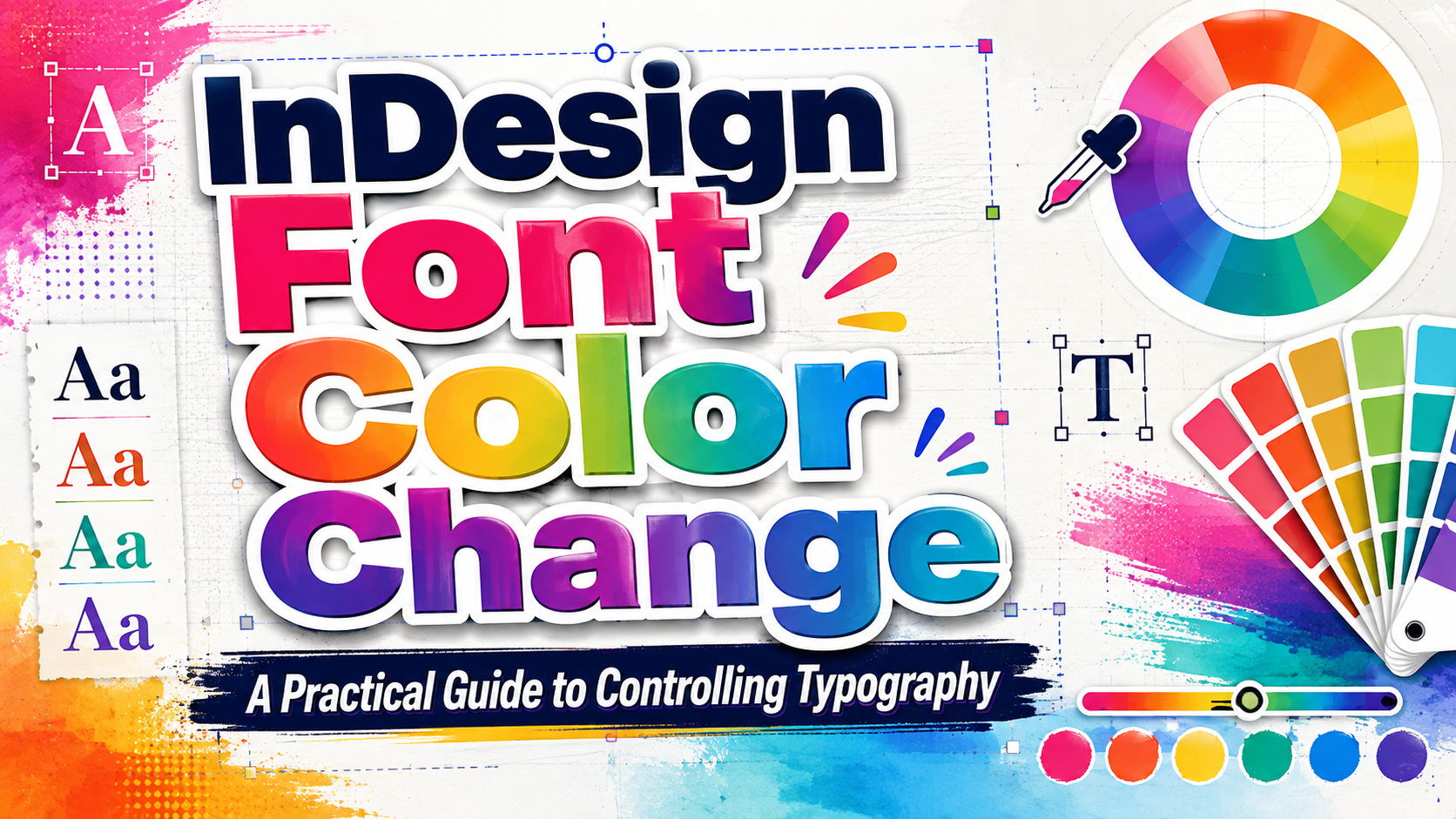
The easiest way to handle an InDesign font color change is to select the text with the Type Tool and apply a color through the Swatches panel. But for professional work, there is an important second step: turn frequently used colors into named swatches and connect them to text styles whenever possible.
This creates a much stronger workflow than manually entering color values every time.
For example, a magazine might use:
- Brand Black for body copy
- Editorial Blue for section headings
- Accent Orange for quotations
- Muted Gray for captions
- Paper White for reversed text
If the client later changes Editorial Blue, you can edit the swatch rather than searching through dozens of pages for individually colored headings.
Adobe recommends managing document colors as swatches because they can be examined, edited, and reused consistently.
How to Change Font Color in Adobe InDesign
Method 1: Change the Color of Selected Text
For a basic text color change:
- Select the Type Tool.
- Highlight the characters, word, sentence, or paragraph you want to recolor.
- Open Window > Color > Swatches.
- Make sure text formatting is active rather than the text-frame container.
- Make sure Fill is selected if you want to change the interior color of the characters.
- Click the desired color swatch.
The selected characters should immediately change color.
InDesign can apply color to both the fill and stroke of characters, which is why understanding the Fill and Stroke controls is important.
Text Fill vs. Text Stroke
One of the most common sources of confusion for beginners is the distinction between Fill and Stroke.
Fill
Fill controls the interior of the characters.
For normal typography, this is usually the property you want to change.
For example:
SUMMER COLLECTION
could have:
- Fill: Orange
- Stroke: None
Stroke
Stroke adds a line around the characters.
For example:
- Fill: White
- Stroke: Black
can produce outlined white lettering.
Stroke can be useful for:
- Posters
- Magazine covers
- Display headlines
- Social graphics
- Text over photography
However, excessive strokes can damage readability, especially on small text.
Use them primarily as a display treatment rather than a default body-text style.
Why Does InDesign Change the Text Box Instead of the Font?
You may select a text frame, choose a color, and suddenly the entire box becomes colored while the letters remain unchanged.
This happens because InDesign distinguishes between formatting the container and formatting the text.
The software provides a control for switching between:
- Formatting Affects Container
- Formatting Affects Text
Adobe’s shortcut documentation lists J as the shortcut for toggling between these two formatting targets.
For a font color change, make sure the text target is active.
This distinction becomes important because a single text frame can have:
- A colored background
- A border
- Separately colored text
Those are independent design properties.
Method 2: Change the Color Through the Color Panel
You can also create or adjust colors through the Color panel.
Open:
Window > Color > Color
Depending on the document and selected color mode, you can adjust color components directly.
This approach can be useful when experimenting, but named swatches are generally better for colors that will appear repeatedly.
Once you find a color that belongs to the design system, save it as a swatch.
Creating a New Color Swatch
Open:
Window > Color > Swatches
Then choose New Color Swatch from the panel menu.
Define the required values and give the swatch a useful name.
Instead of names such as:
- Blue 1
- Blue 2
- Dark Blue Final
use semantic names such as:
- Brand Primary
- Editorial Accent
- Heading Blue
- Caption Gray
- Warning Red
Semantic naming makes larger documents much easier to maintain.
RGB vs. CMYK for InDesign Typography
The appropriate color mode depends on the output.
RGB
RGB is generally associated with screen-based output.
It is relevant to:
- Digital PDFs
- Online publications
- Screen presentations
- Digital graphics
CMYK
CMYK is commonly used in process printing.
It is relevant to:
- Magazines
- Brochures
- Books
- Flyers
- Packaging
- Printed catalogs
Do not assume that a bright RGB color will reproduce identically in CMYK.
Adobe’s print guidance notes that RGB and Lab colors may be converted to CMYK during many print and output operations, potentially changing the expected appearance.
For professional printing, communicate with the printer about:
- Color profile
- CMYK requirements
- Spot colors
- Paper
- Ink
- Proofing
- PDF standard